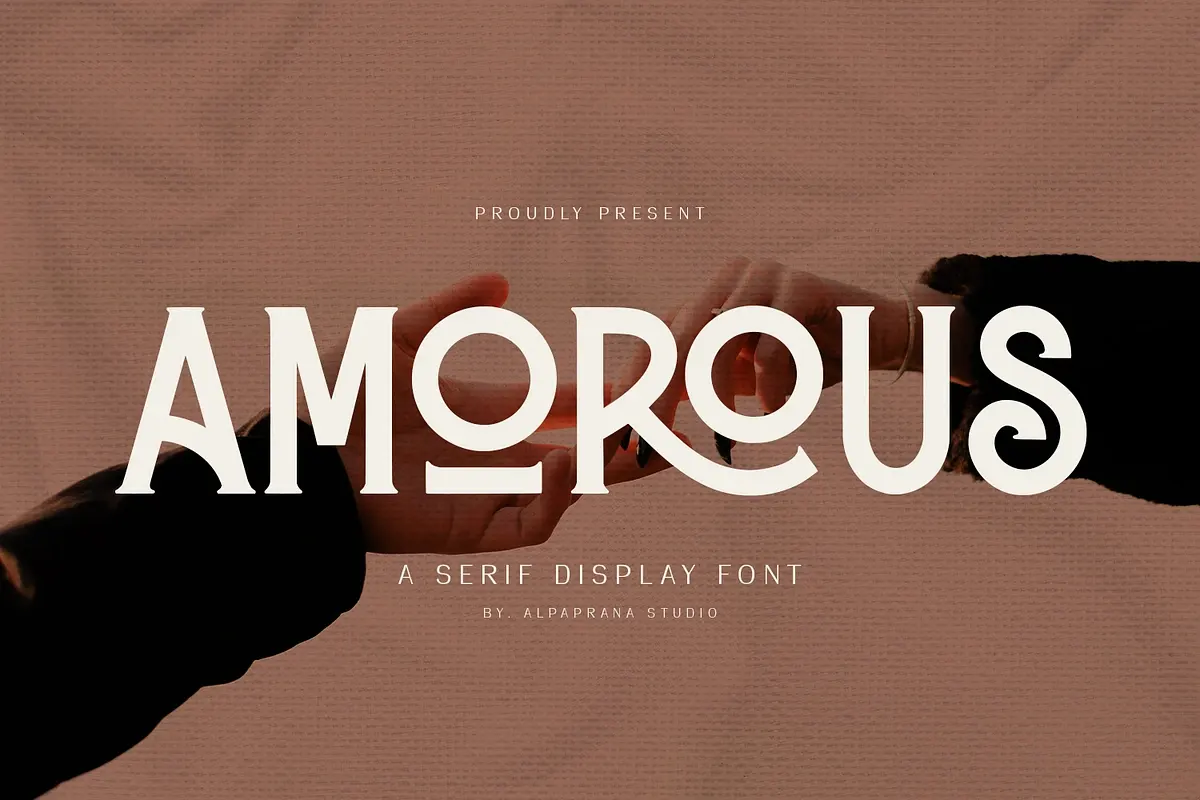
Amorous - Serif Font Free Download
Amorous - Serif Font Free Download is a refined and elegant serif typeface that blends modern sophistication with timeless design. Perfect for high-end branding, logos, invitations, editorial projects, and more, Amorous offers crisp, clean lines and beautifully designed letterforms that make your designs stand out. Its versatility and readability make it ideal for both digital and print applications.